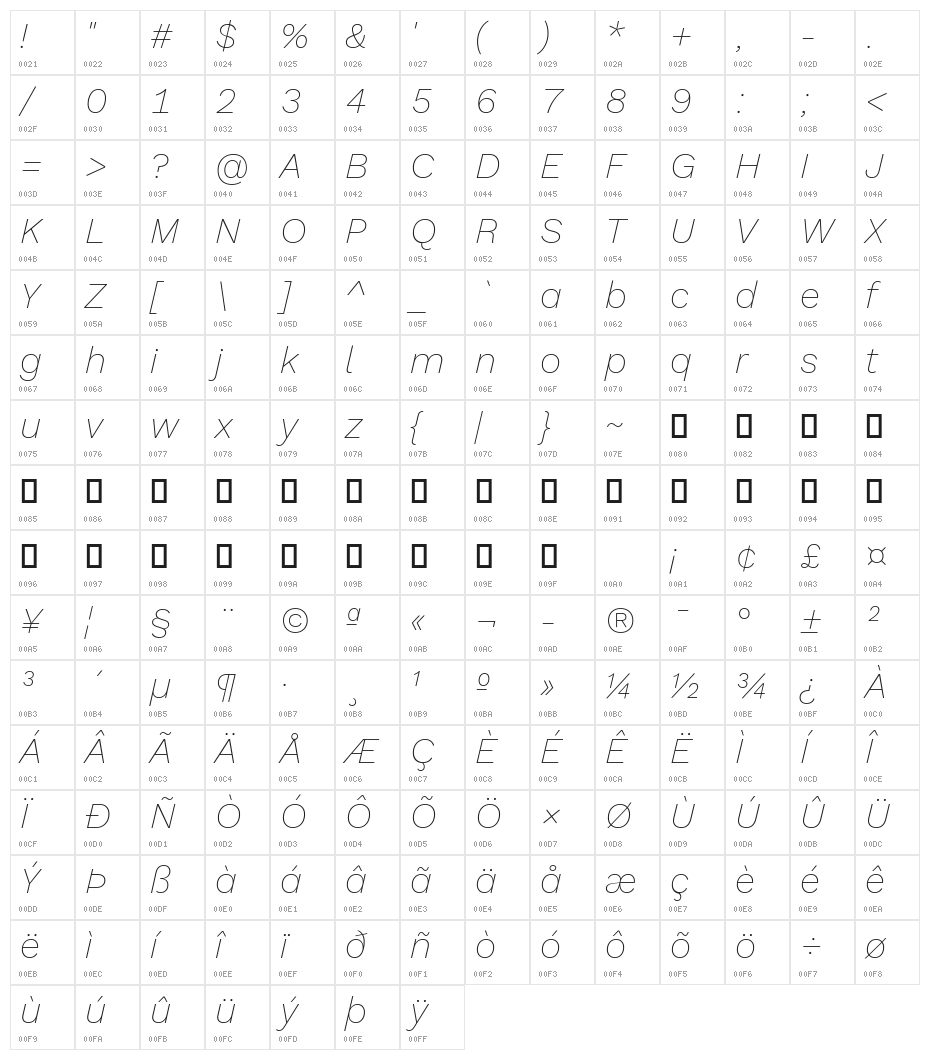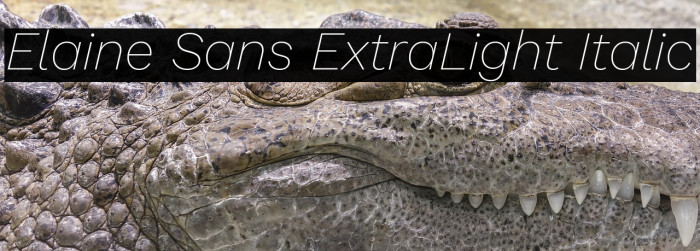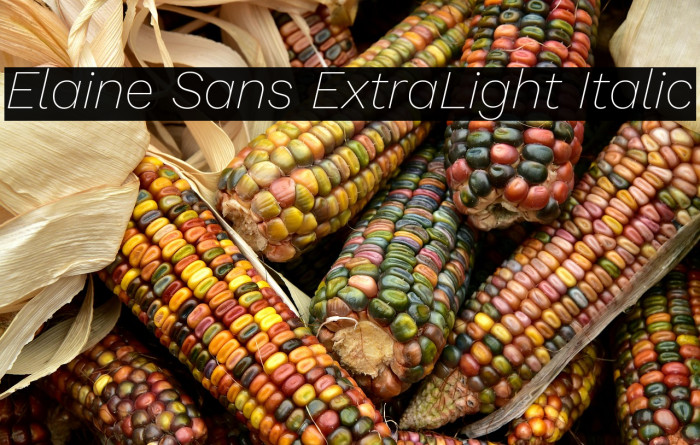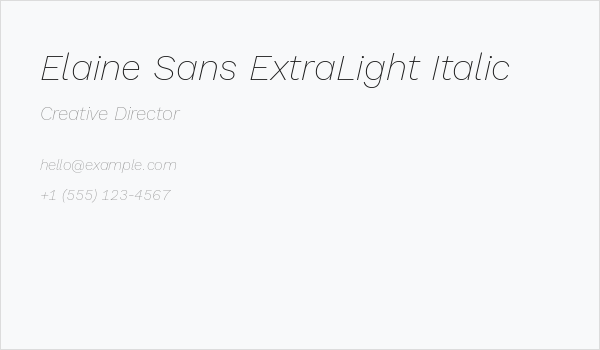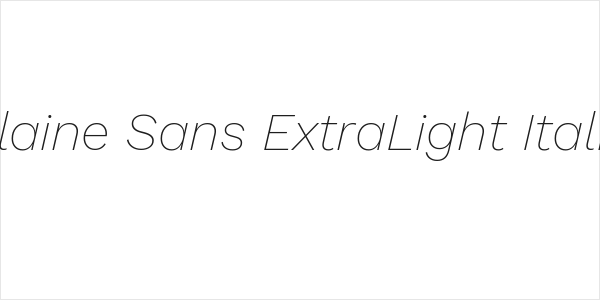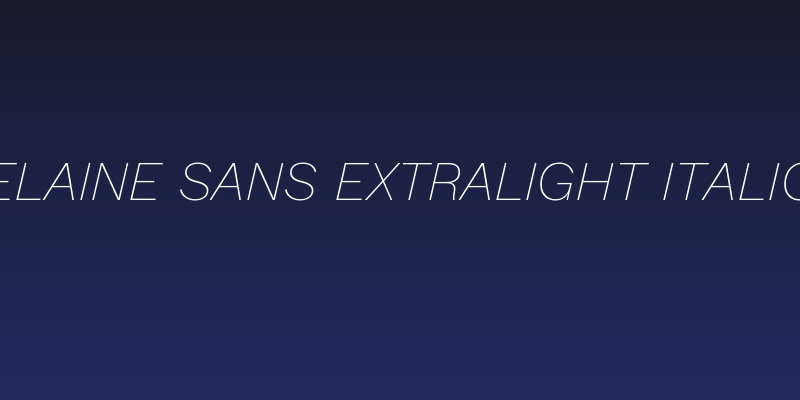
Elaine Sans ExtraLight Italic Font
Elaine Sans ExtraLight Italic Description
This font features a sleek and elegant design with a modern sans-serif style. The characters are crafted with an extra light weight, giving them a delicate and airy appearance. The italic slant adds a dynamic and sophisticated touch, enhancing the overall fluidity of the text. The clean lines and minimalistic approach make it ideal for contemporary design projects. The uppercase and lowercase letters maintain a consistent style, while the numerals and special characters complement the overall aesthetic. This font's refined and understated elegance makes it suitable for a variety of applications.